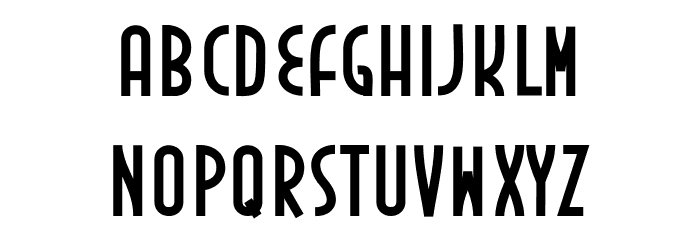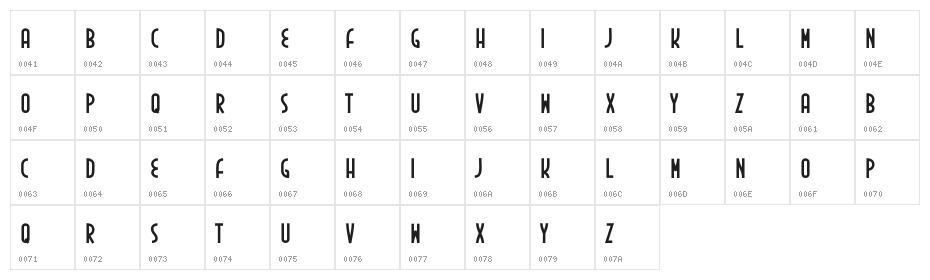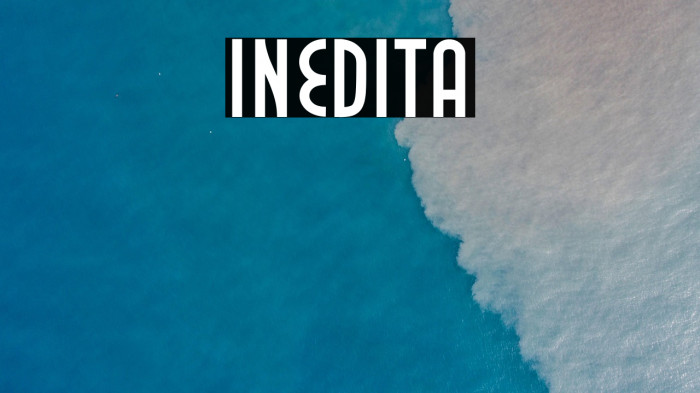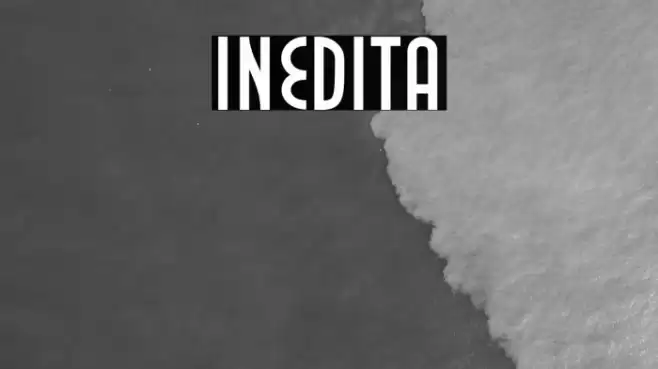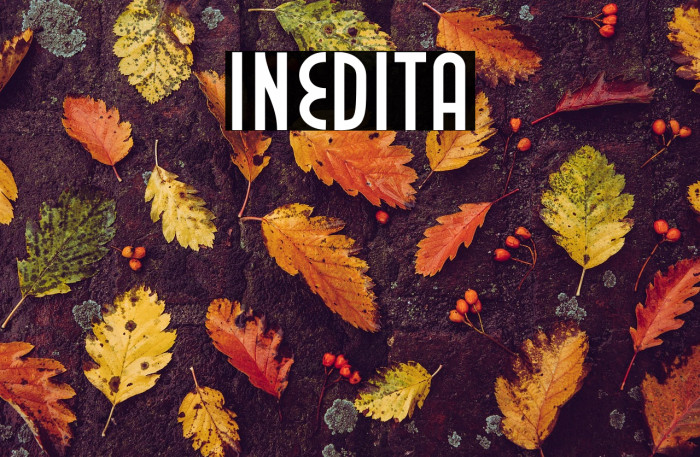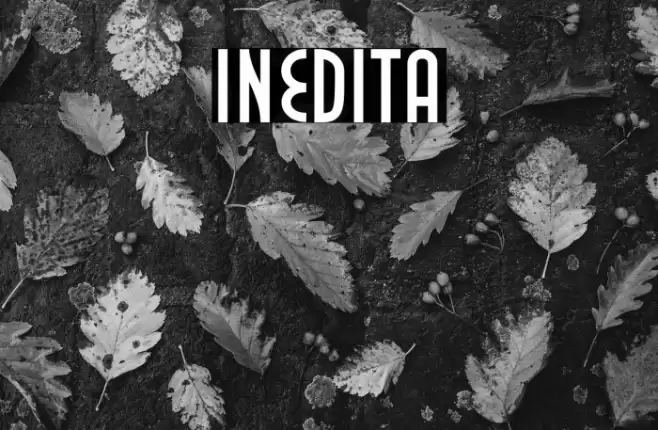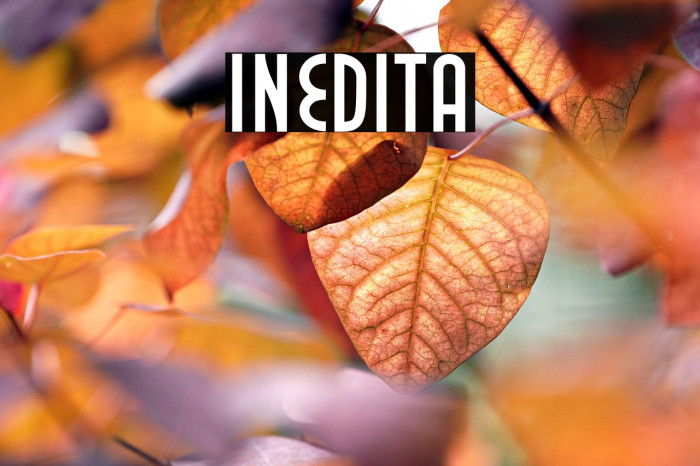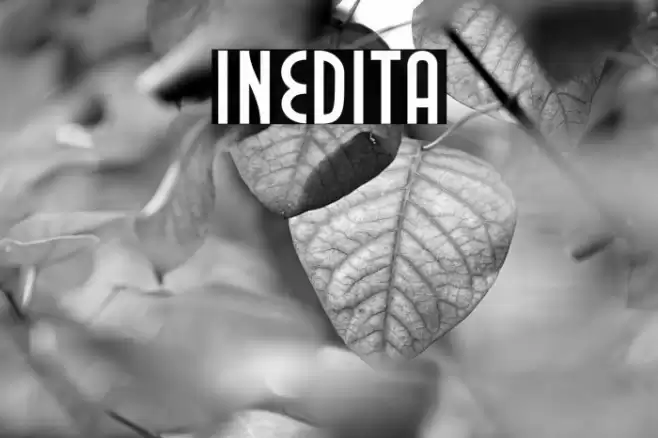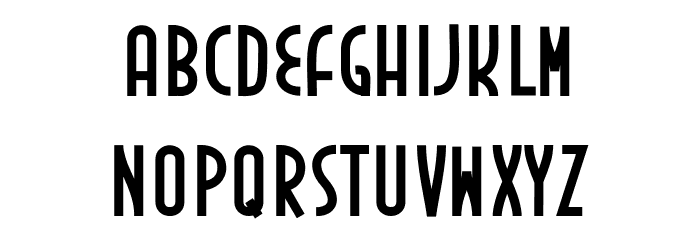
Inedita Font
Inedita Description
This font features a bold and modern design with a distinct geometric influence. The characters are tall and narrow, giving a condensed appearance that is both striking and elegant. The uppercase letters have a consistent height, while the lowercase letters maintain a similar style, ensuring uniformity across the text. The font's clean lines and sharp angles make it ideal for creating a contemporary and professional look. Its unique style is further enhanced by the subtle variations in stroke thickness, adding a touch of sophistication. The font is versatile and can be used in various design projects, from branding to digital media.